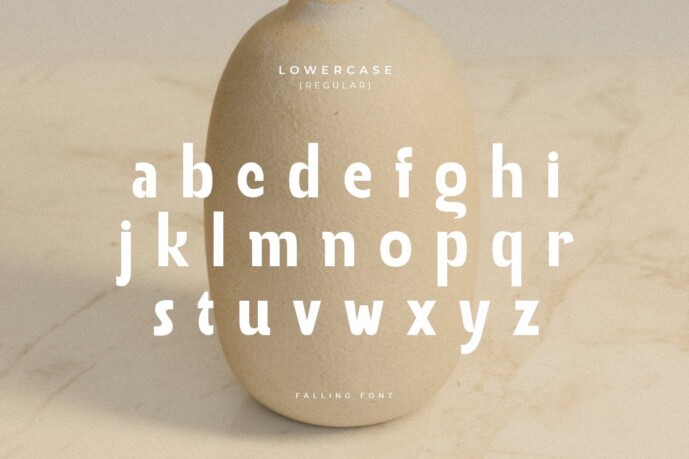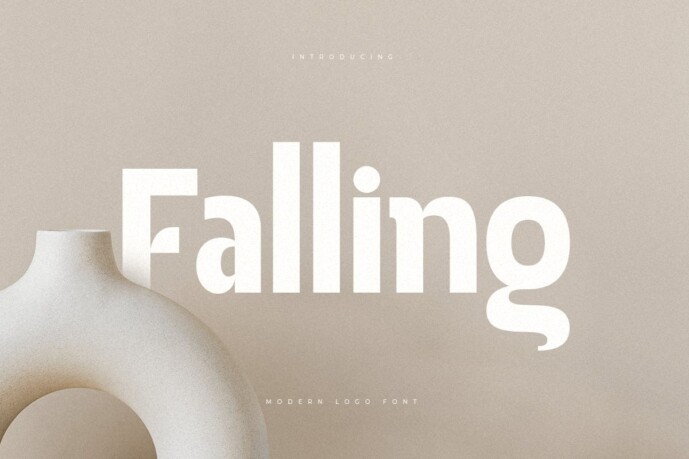
Falling Font
Falling Font, a modern font that we created specifically to meet unique branding needs, with additional uniquely shaped ligatures, will be ready to add value to your brand. It’s so nice to call on a designer or product owner who needs solutions to make their design look more unique and modern. And especially for this font, we have prepared all the ligature characters to help you create unlimited variations with an outline font style to suit your creative needs.